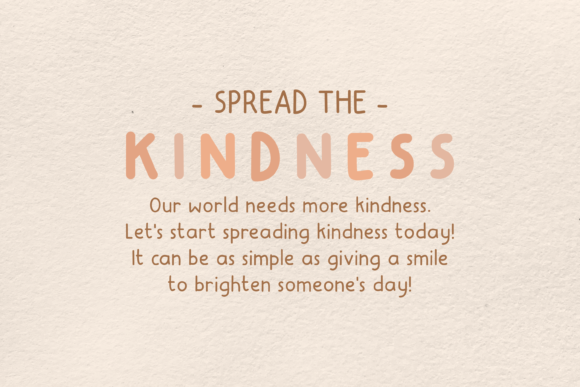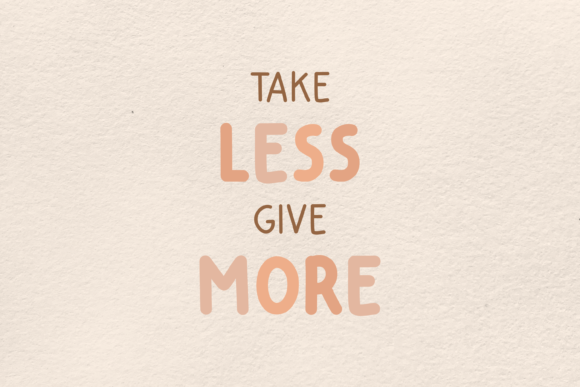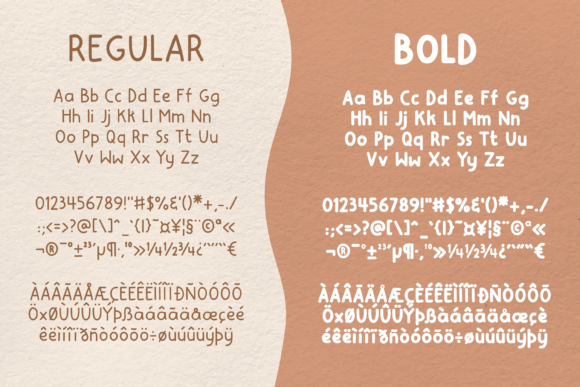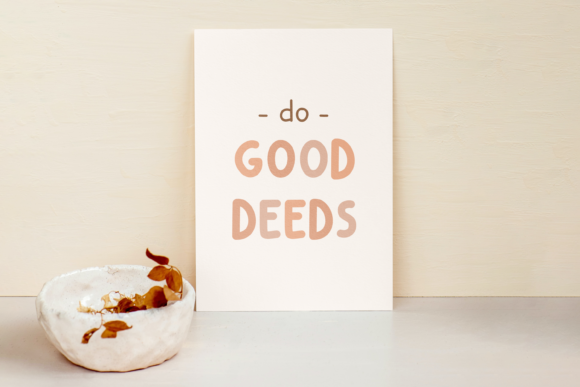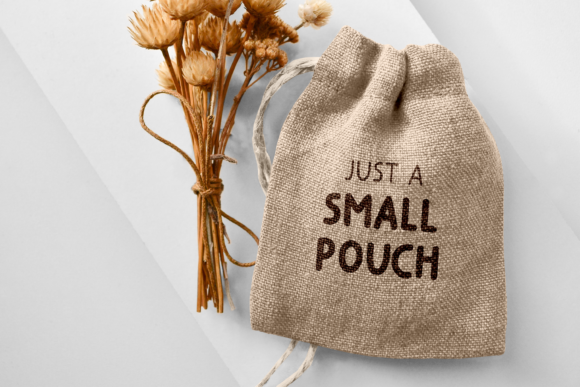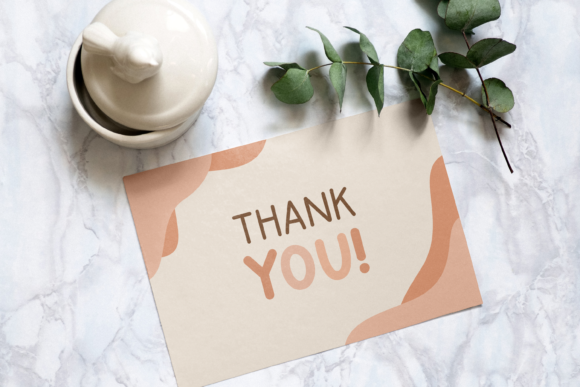
Fiyya Qiyya Font
About Fiyya Qiyya Font
Introducing “Fiyya Qiyya,” a sweet and friendly handwritten font available in two weights: regular and bold. With its charming and approachable style, Fiyya Qiyya is perfect for a wide range of design projects, including posters, printed quotes, digital designs, and any project that calls for a fun and happy look.
Whether you’re creating posters for a cheerful event, designing uplifting quotes to brighten someone’s day, or crafting playful digital designs, Fiyya Qiyya adds a touch of joy and warmth to every project. Its friendly handwritten appearance exudes positivity and invites connection, making it perfect for spreading smiles and good vibes.
With two weights to choose from, you have the flexibility to tailor Fiyya Qiyya to suit your design needs. Whether you prefer the simplicity of the regular weight or the boldness of the bold weight, both options offer versatility and charm.
Experience the sweetness and friendliness of Fiyya Qiyya and watch as it brings a happy and playful vibe to your designs. Whether you’re a professional designer or a creative enthusiast, this font invites you to unleash your creativity and spread happiness with every stroke.
Unlock the full potential of your designs with Fiyya Qiyya and let its cheerful and friendly demeanor inspire joy and positivity wherever it goes. With its sweet and friendly appearance, this font is sure to become a favorite in your design toolkit, bringing smiles to faces and warmth to hearts.